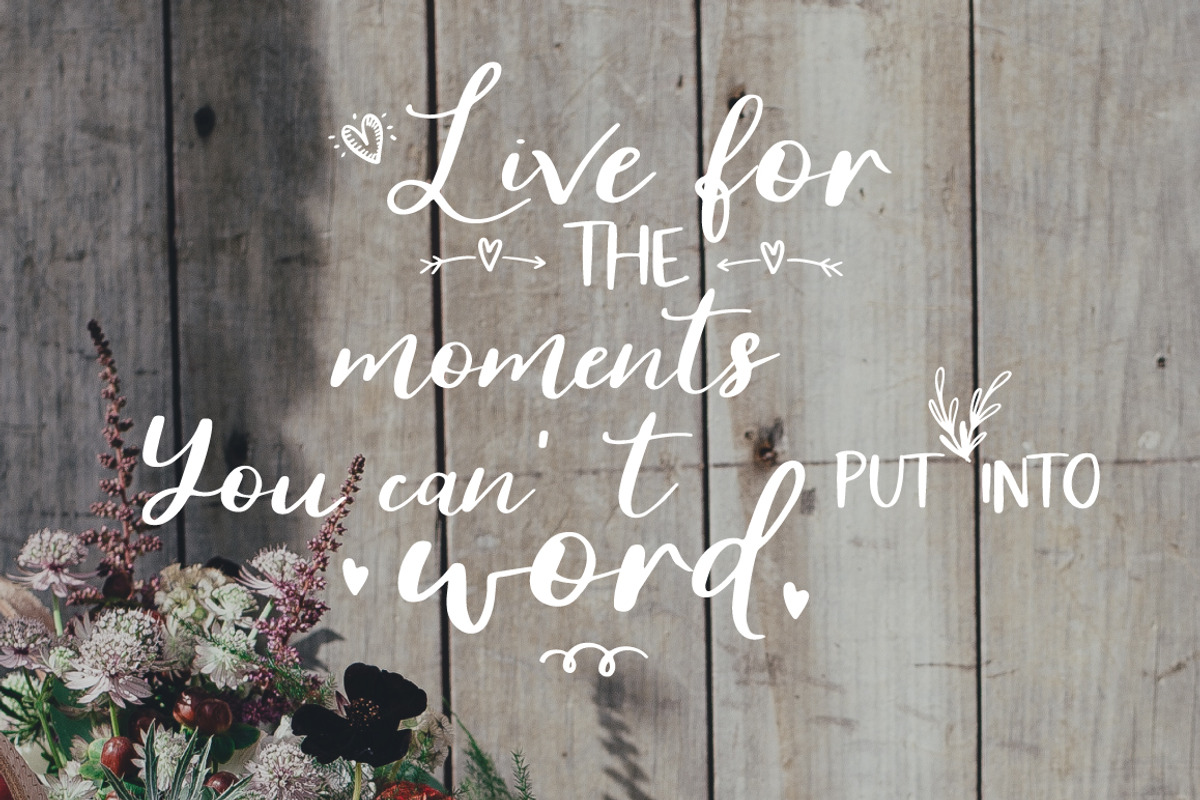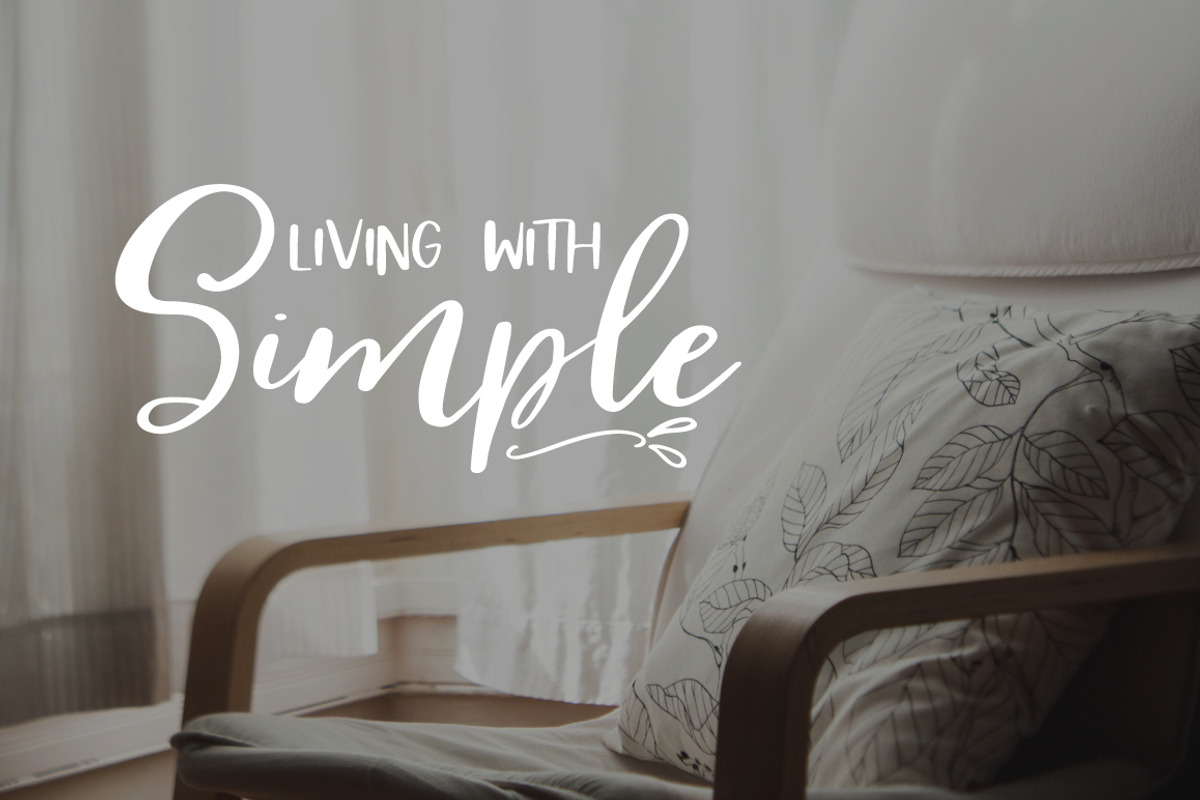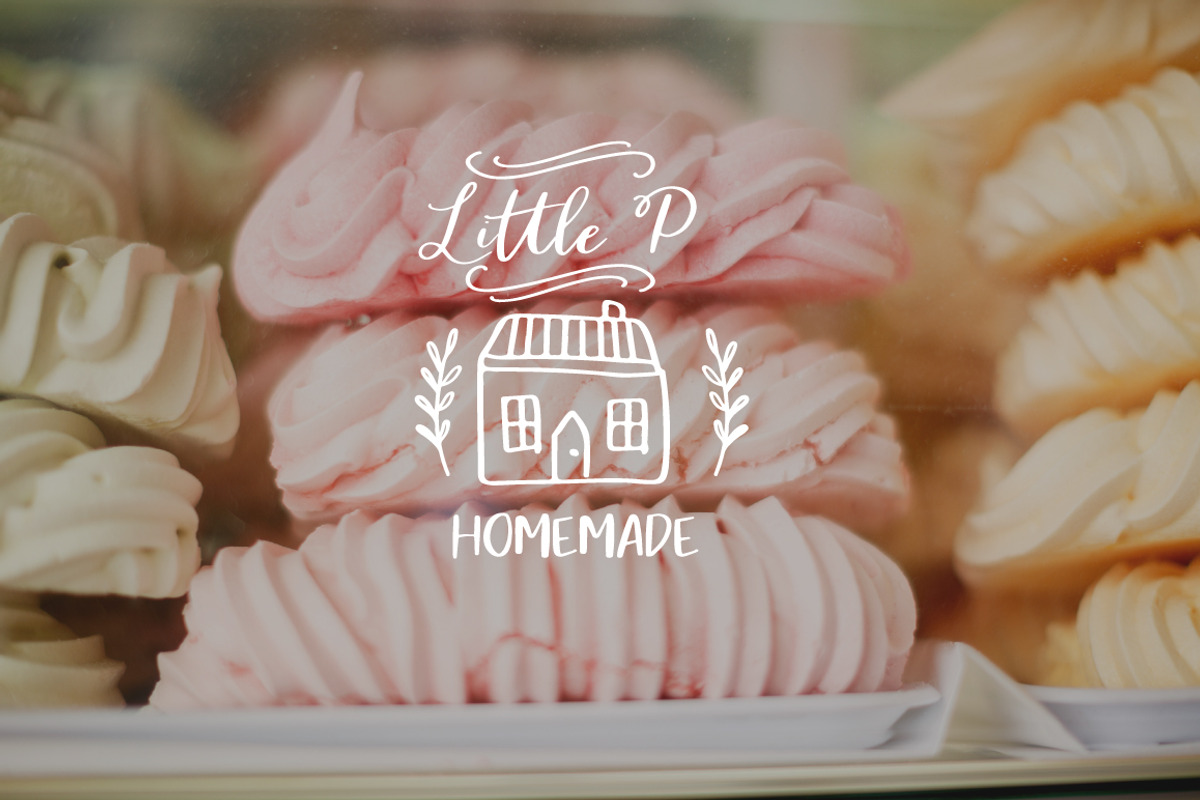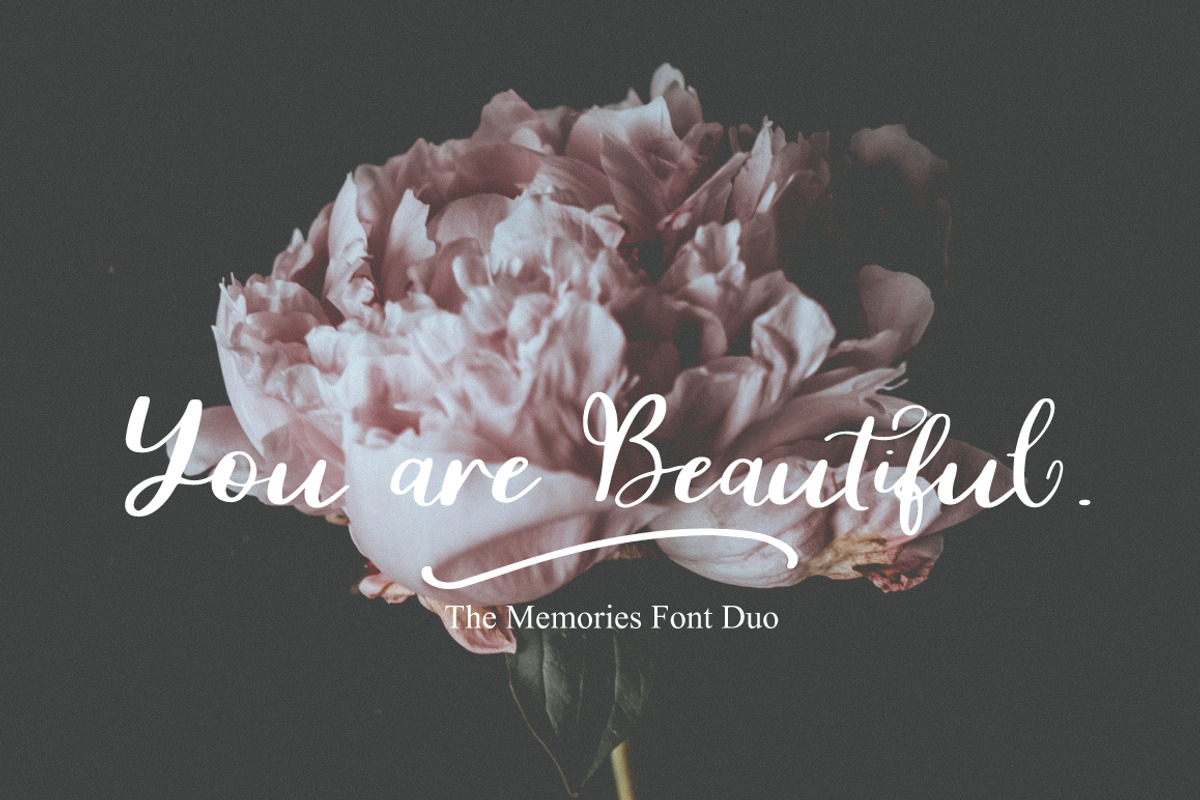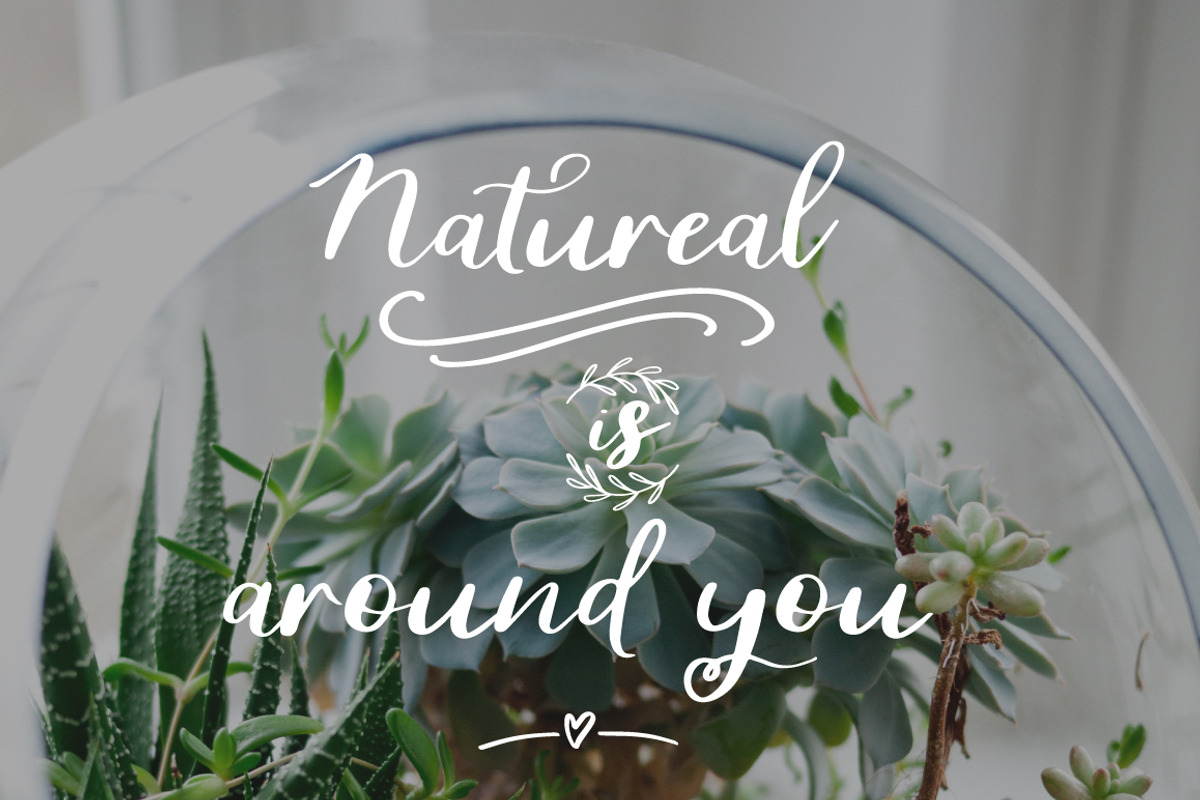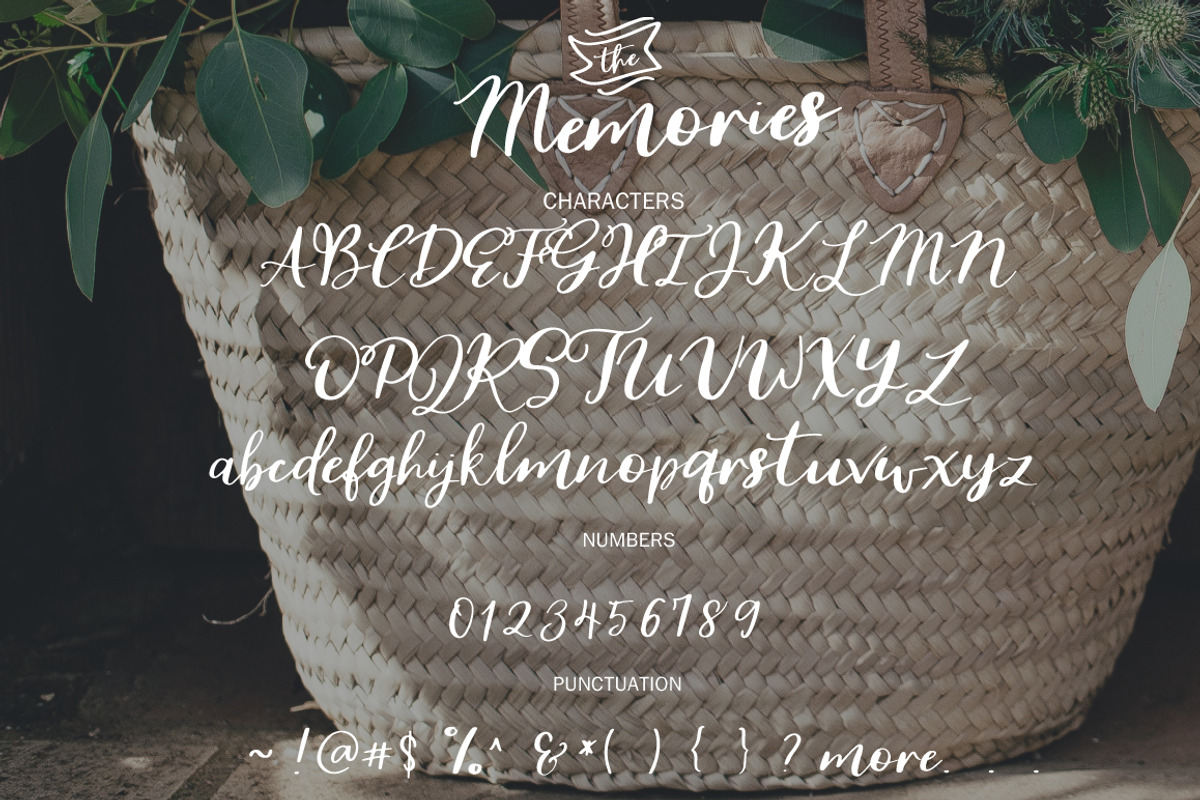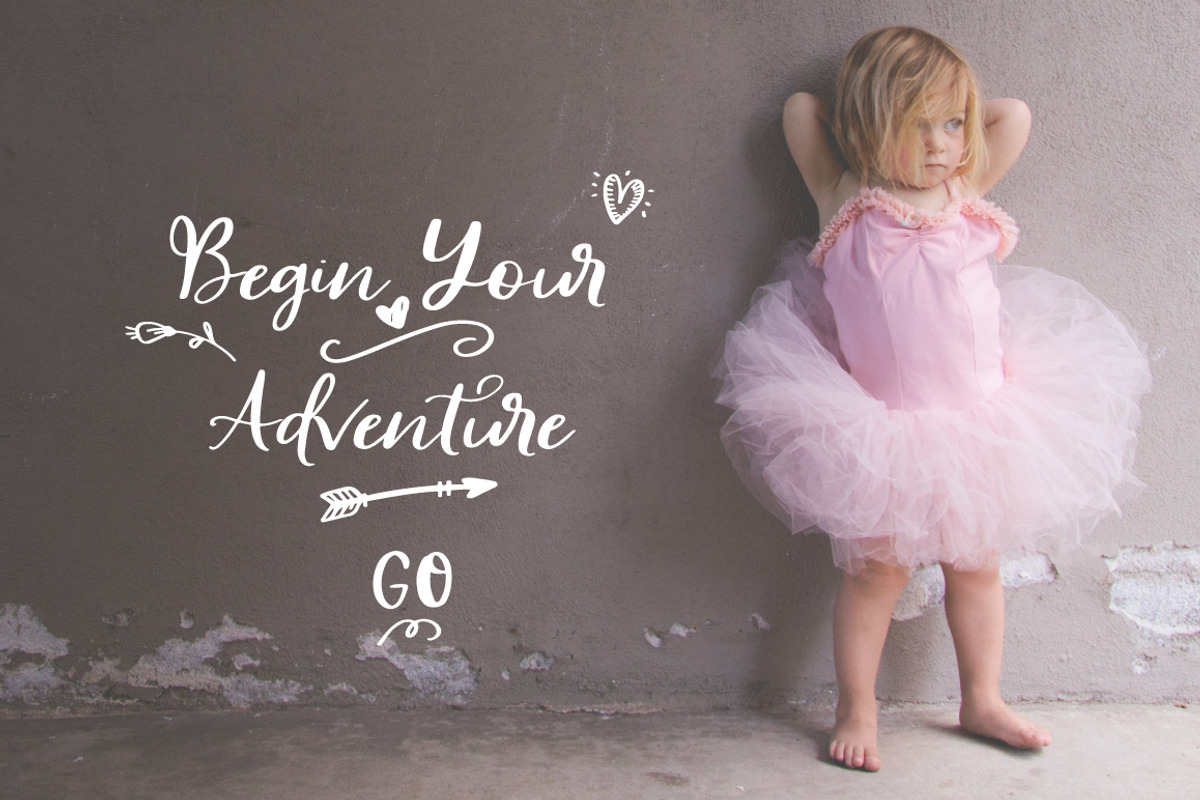
The Memorie Font DUO & Doodle
The Memories is a sweet and classic font.
Every single letter has been creative carefully and Perfectly Playful new font pair. This font is a little romantic script designed for making your set of invitations, quotes, blog posts, and more completely beautiful
The script has alternate upper and lowercase character set
And you get over 80 handy doodles illustrations to use too
The Memorie Font DUO & Doodle by Artstudio fits naturally into Branding, posters, packaging, typography.